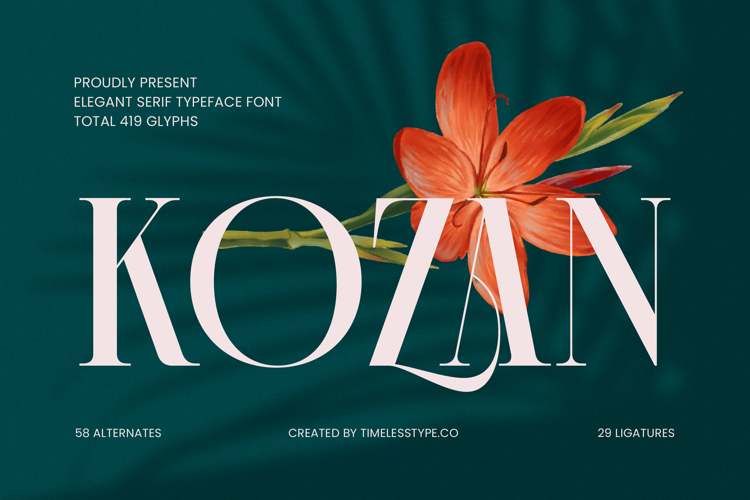
Kozan - Elegant Serif Typeface Font
Unleash unparalleled elegance in your designs with Kozan - Elegant Serif Typeface Font. This exquisite typeface embodies a perfect fusion of classic sophistication and modern refinement, an indispensable asset for discerning creatives. Its graceful, high-contrast letterforms and subtly flared serifs project an aura of timeless beauty, ensuring every word resonates with premium style. The delicate balance creates a captivating visual experience, instantly elevating any project it graces.
Experience design freedom like never before, empowered by meticulous craftsmanship. Kozan - Elegant Serif Typeface Font boasts an impressive collection of 419 glyphs, including 58 alternates and 29 ligatures, providing unrivaled creative flexibility. These extensive OpenType features allow designers to craft truly unique and expressive typographic compositions, transforming ordinary text into an art form. Its thoughtful design ensures legibility and aesthetic appeal across various scales.
Expand your reach and communicate globally with unwavering elegance. With its extensive multilingual support, Kozan - Elegant Serif Typeface Font adapts seamlessly across global markets, making it incredibly versatile for international projects. This crucial feature ensures your message maintains its sophisticated presence, regardless of language, fostering consistent brand identity and professional communication worldwide. Kozan - Elegant Serif Typeface Font is engineered for a truly global impact.